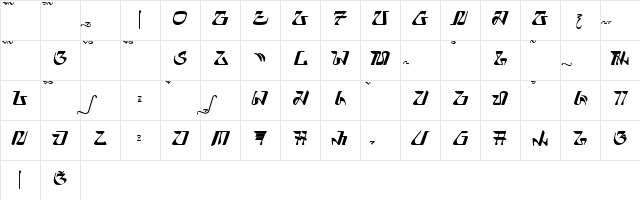
elnaya - aksara sunda Regular
Design Context for elnaya - aksara sunda Typeface
elnaya - aksara sunda is a composed and adaptable typeface that performs quietly and consistently across a wide range of design contexts.